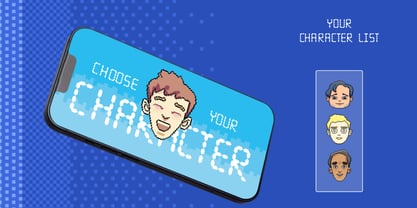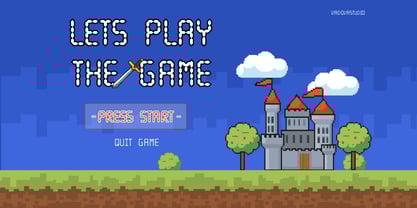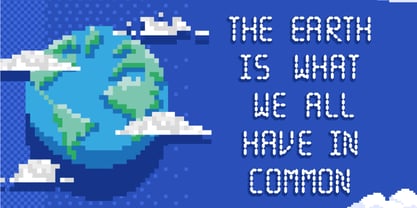
Pixelarc
The Pixelarc Font Family was designed by and published by Vadova Std. Pixelarc contains 1 styles.
Elevate your designs with Pixelarc Pixel Monoscape Font , a modern font perfect for adding elegance and style to your projects. This font offers key features like OpenType format compatibility, uppercase and lowercase characters, plus numerals and punctuation, perfect for versatile and professional designs. Whether it’s for quotes, logotypes, magazine headers or more.